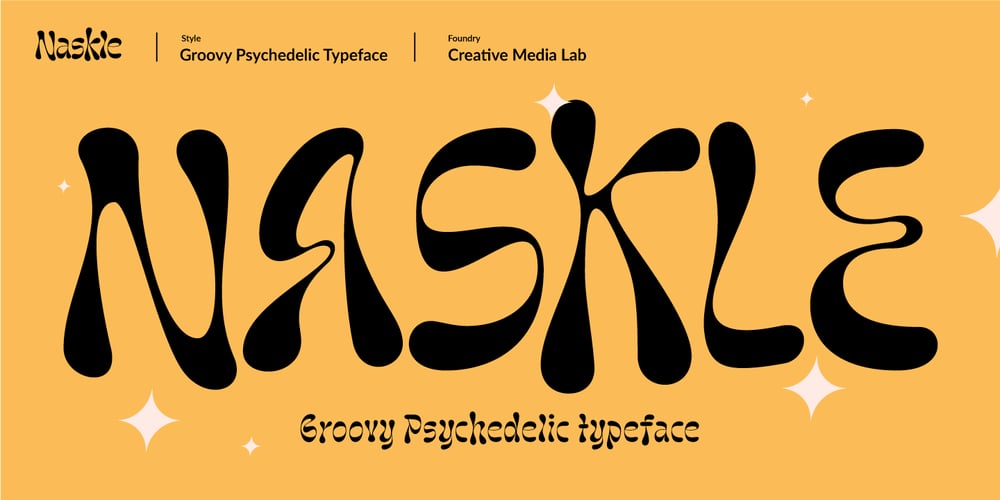
Naskle Font Family was designed by Kadek Mahardika and published by Creativemedialab. Naskle contains 1 styles and family package options. Naskle featuring unique shape letters, this fun groovy and retro psychedelic font is ideal for any fun theme design concept, Illustration posters, kids clothing, stickers, title, logo and more